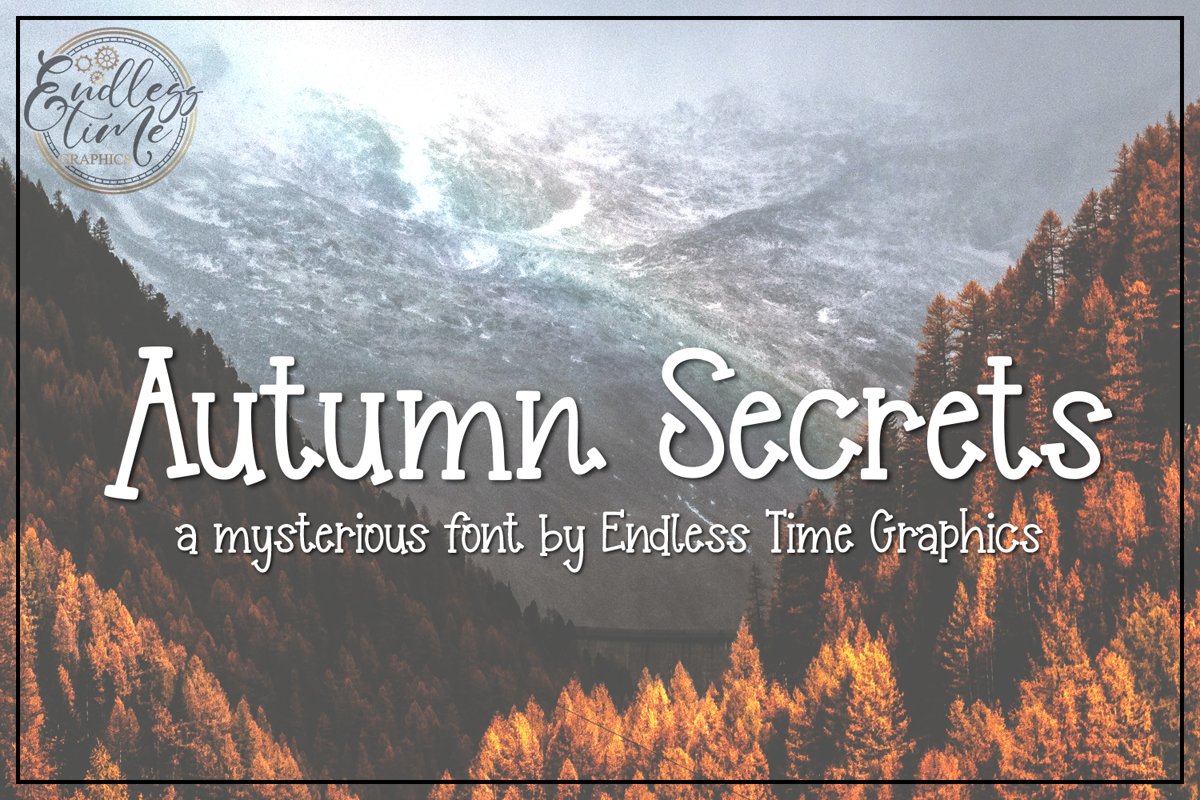
Autumn Secrets - A Mysterious Font By Endless Time Graphics
Introducing Autumn Secrets, a captivating and meticulously crafted font by Endless Time Graphics. This font is the result of two full months of dedication and passion, truly a labor of love.
Autumn Secrets boasts an impressive collection of over 240 characters, including ligatures, contextual alternates, and comprehensive support for Western European Languages with all accented characters.
This font exudes a unique charm and a touch of quirkiness. While my husband detected a subtle Halloween feel, I believe it carries an elegance that makes it suitable for a wide range of fall projects.
Each slab of Autumn Secrets has been meticulously cleaned and precisely aligned, ensuring flawless and smooth outlines. Unnecessary nodes have been expertly removed, resulting in a polished and refined font ready to elevate your designs.